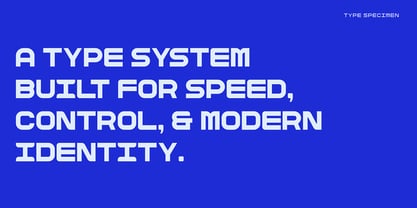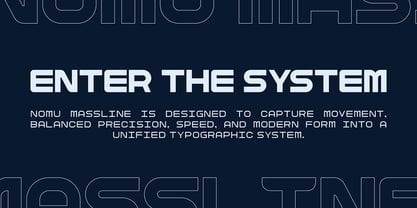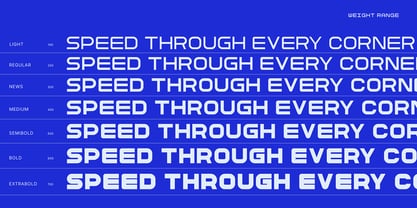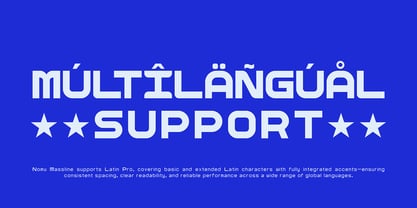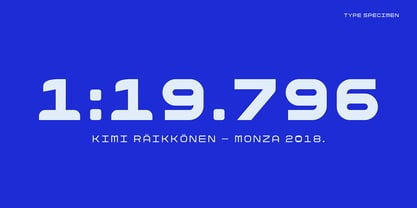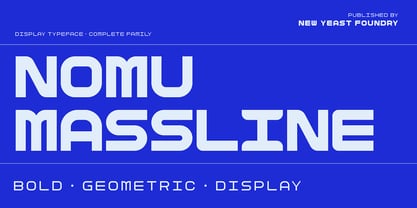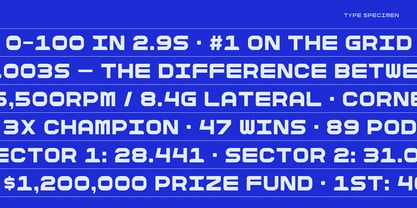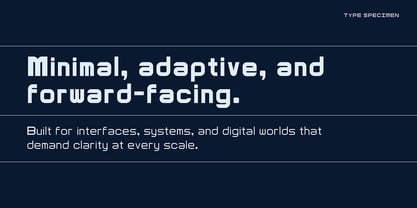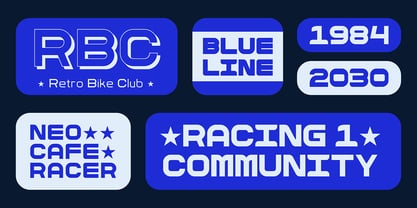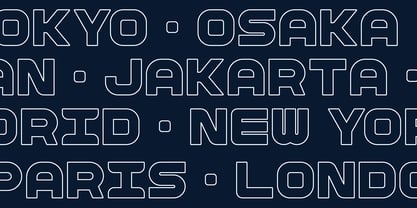
Nomu Massline
The Nomu Massline Font Family was designed by Indratama Yogi and published by New Yeast Foundry. Nomu Massline contains 7 styles and family package options. More about this family
Nomu Massline is a bold geometric display typeface designed for high-impact headlines, branding, and editorial use. Built with a strong visual presence and clean construction, Nomu Massline commands attention at any size — from massive outdoor signage to tight editorial layouts. The family spans seven carefully crafted weights — Light through ExtraBold — offering a full range of typographic expression within a single cohesive system. Each weight is optimized for display use, with balanced proportions and confident strokes that maintain clarity across print and digital media. Featuring 370 glyphs per style, Nomu Massline includes extended Latin character support with a comprehensive set of diacritics, punctuation, currency symbols, and special characters — making it ready for multilingual use across European languages. Designed by New Yeast Foundry, an independent type design studio committed to crafting distinctive typefaces for modern creative work.